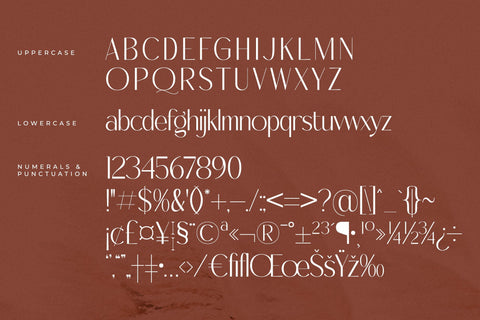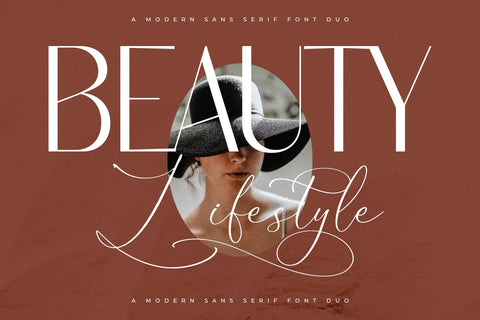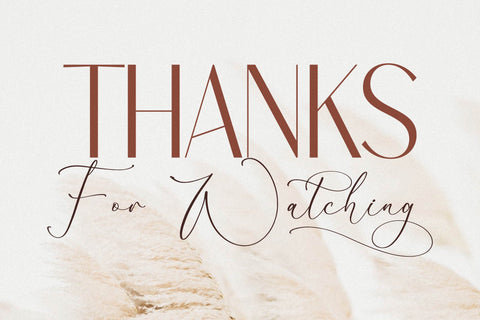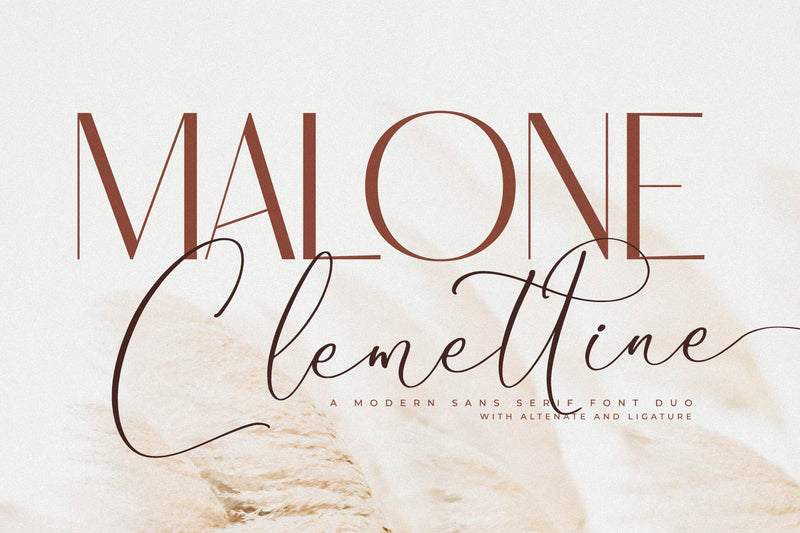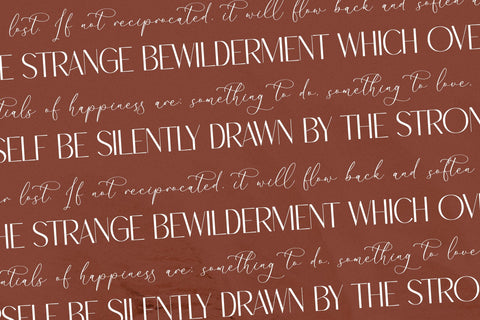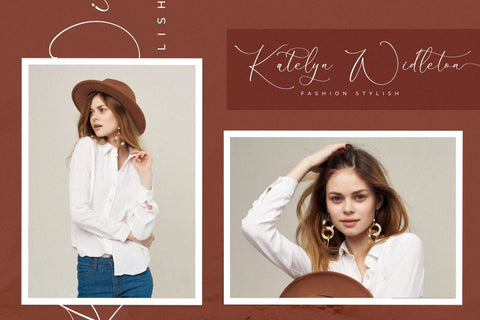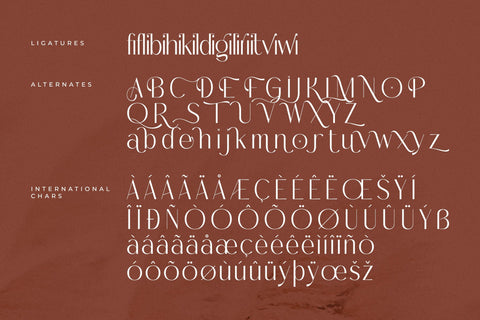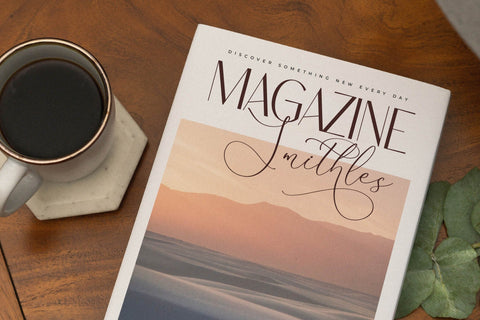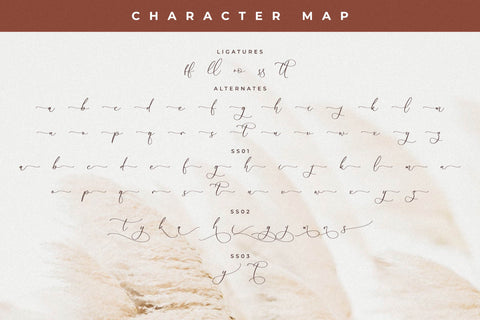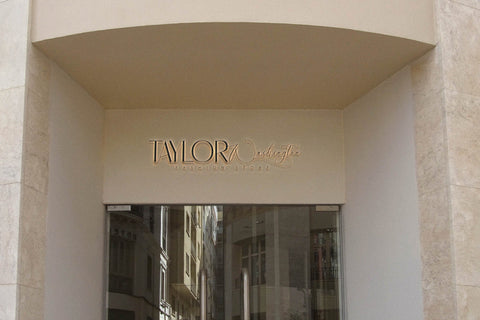
Malone Clemettine Font Duo
Proudly present Malone Clemettine Font Duo , created by Storytype,
A serif and script typeface that has own unique style & modern look.